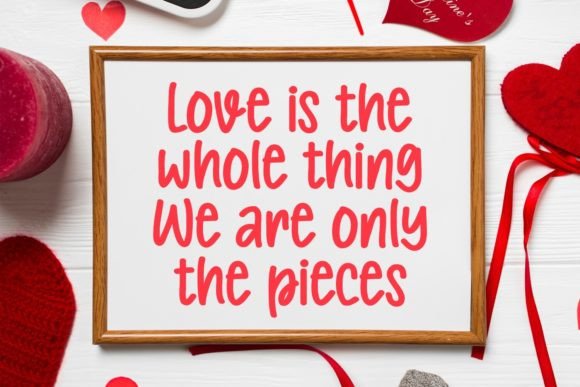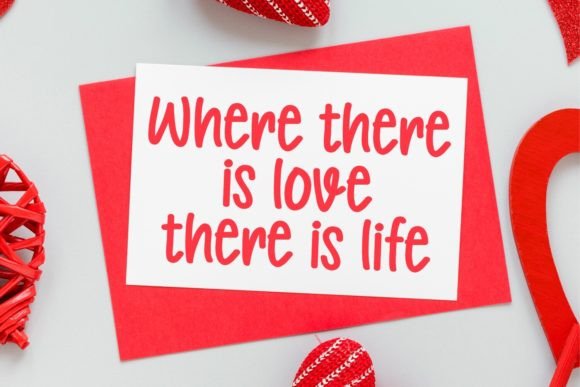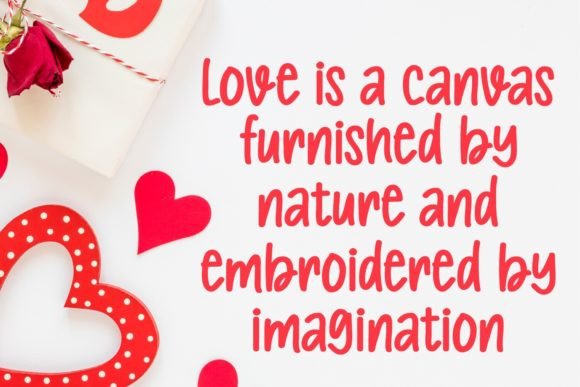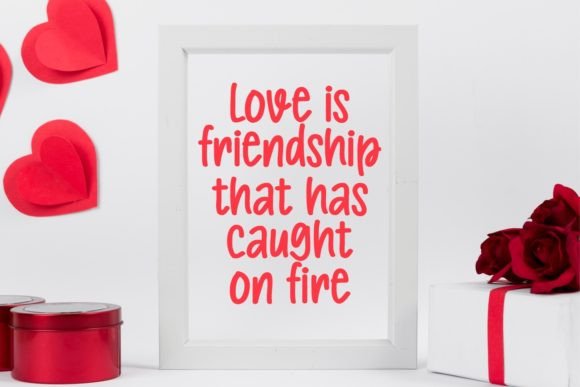
Welcome Valentines Font
Welcome Valentines is a delightful handwritten font that brings a touch of love to your projects. With its charming and friendly style, it’s perfect for adding warmth to invitations, cards, or any creative endeavor. Embrace the sweet simplicity of Welcome Valentines and let your text express a heartwarming welcome with its lovely handwritten charm.